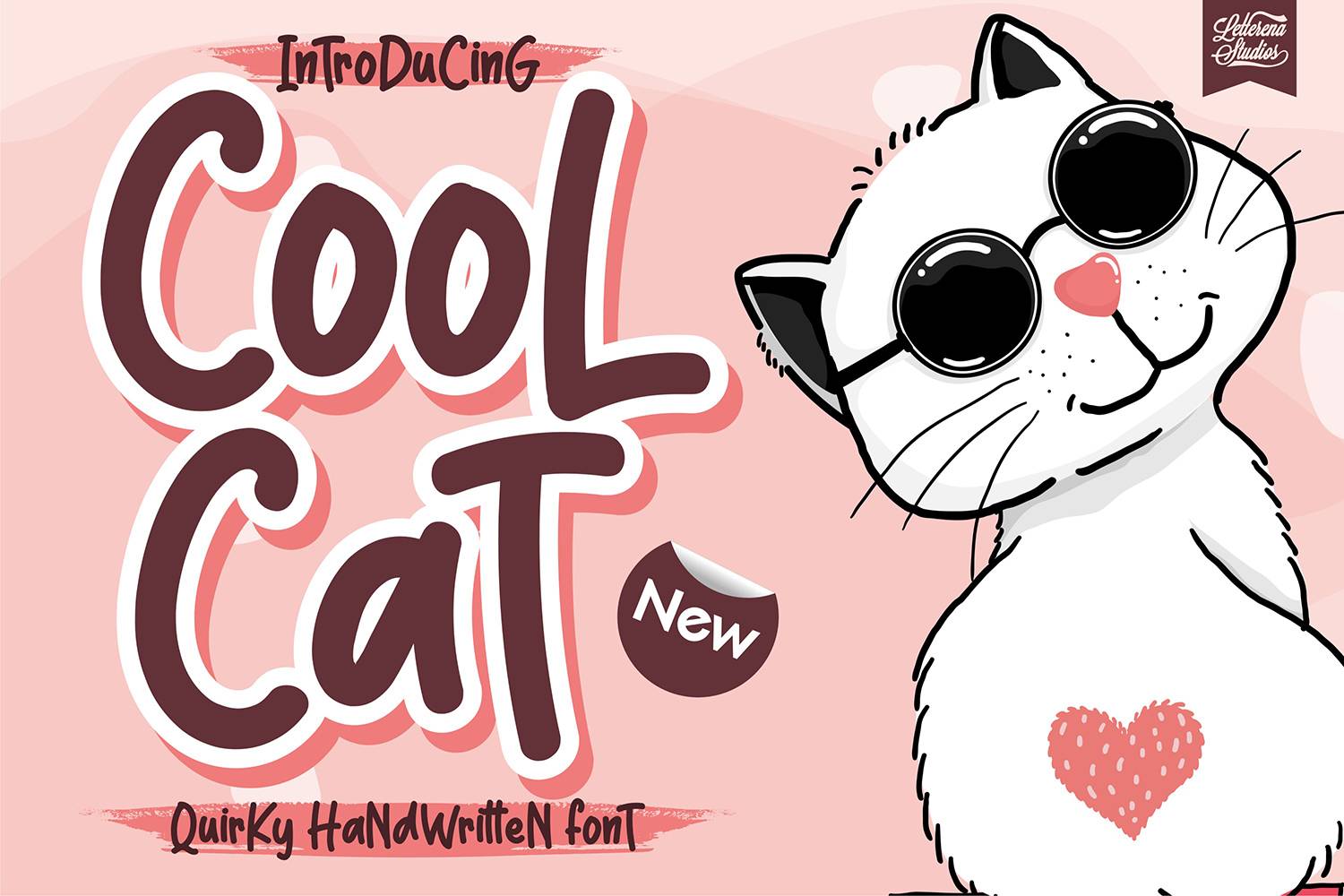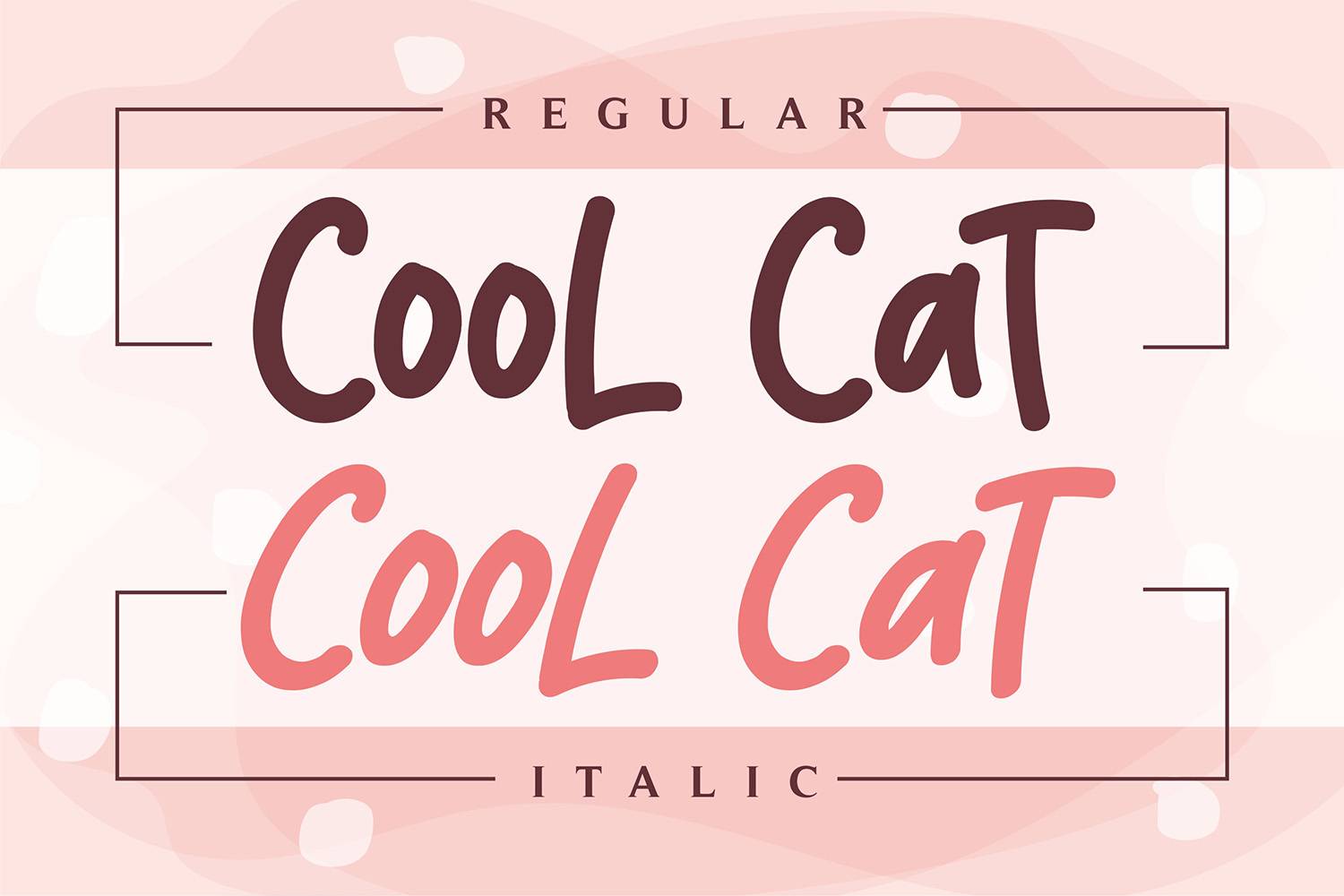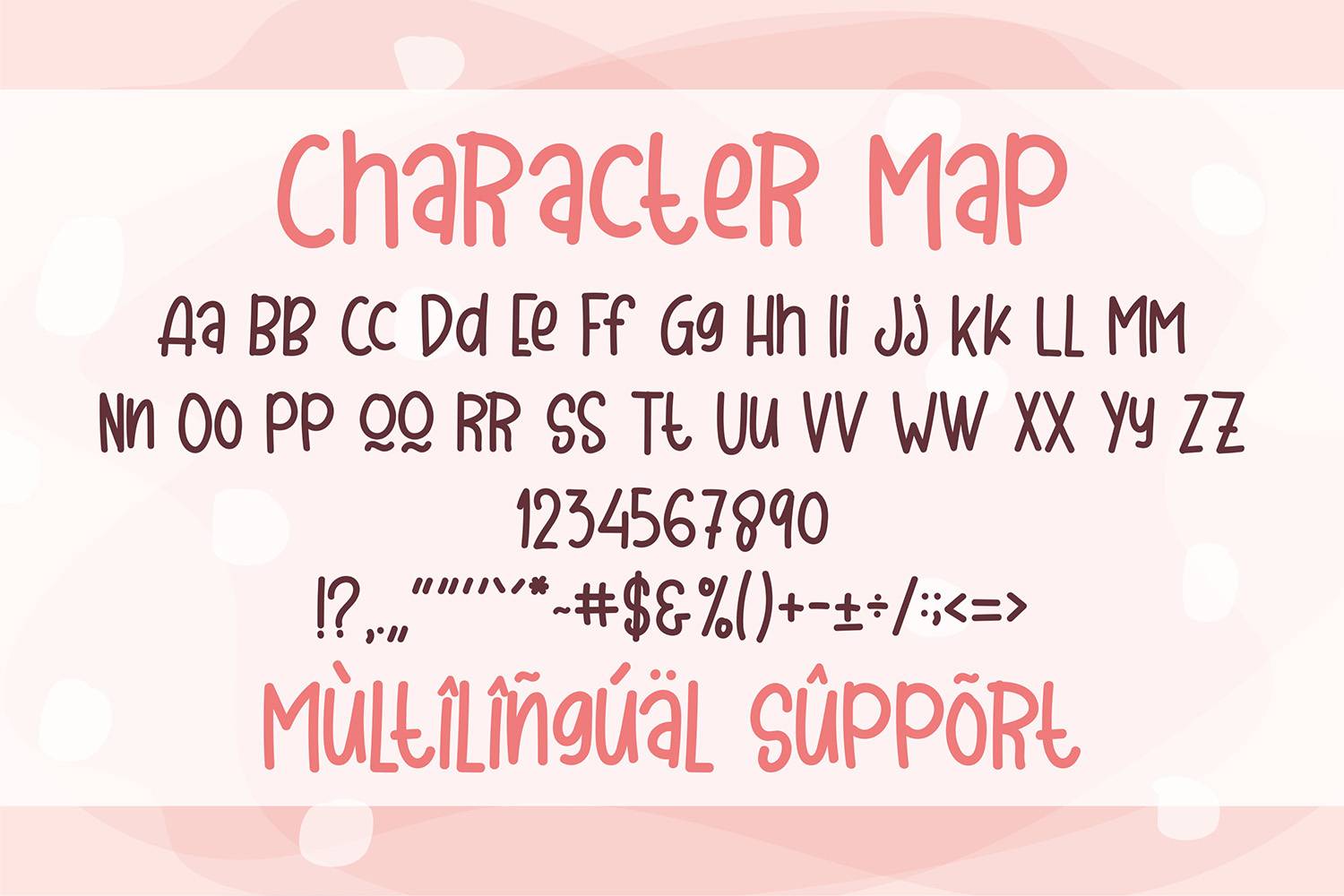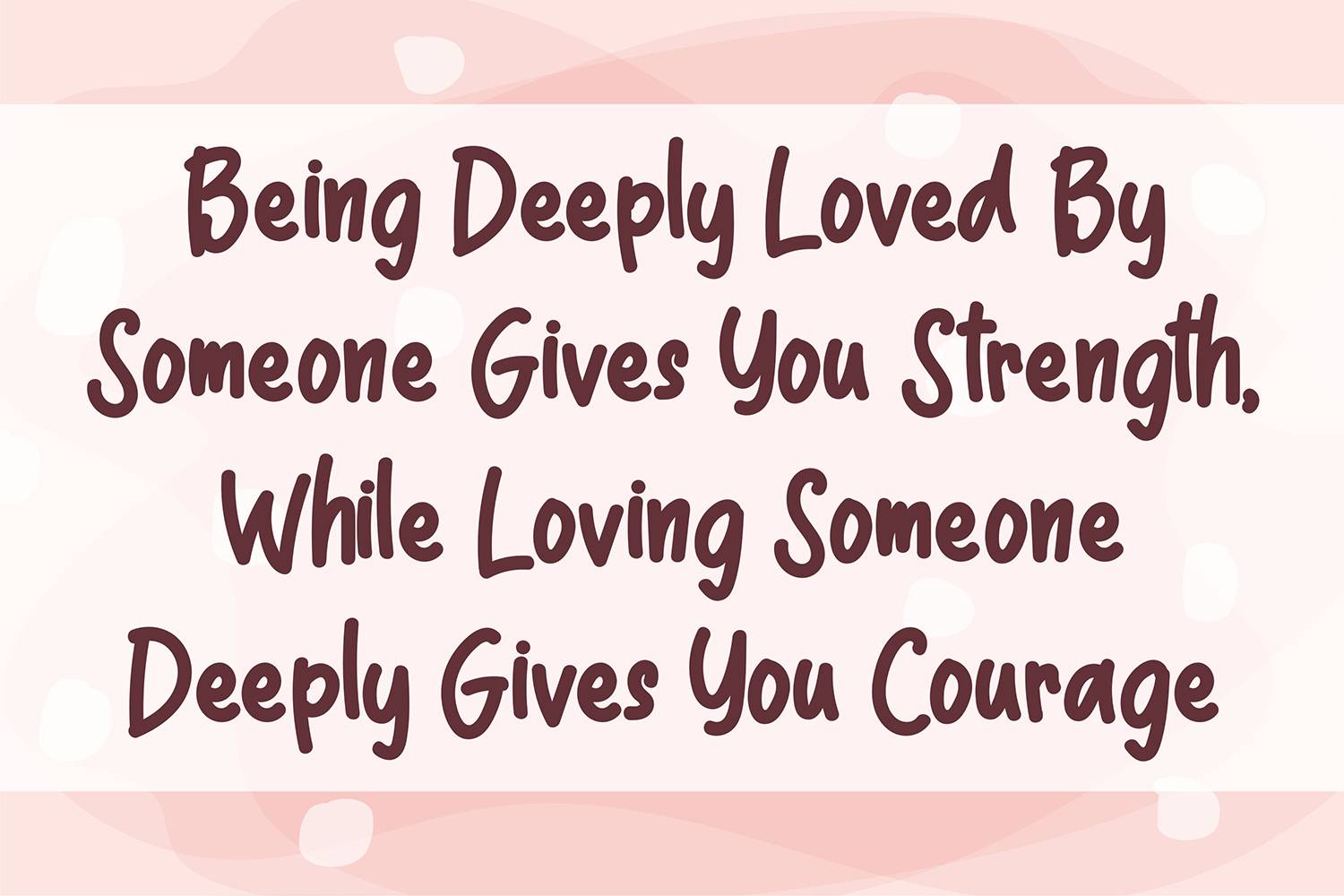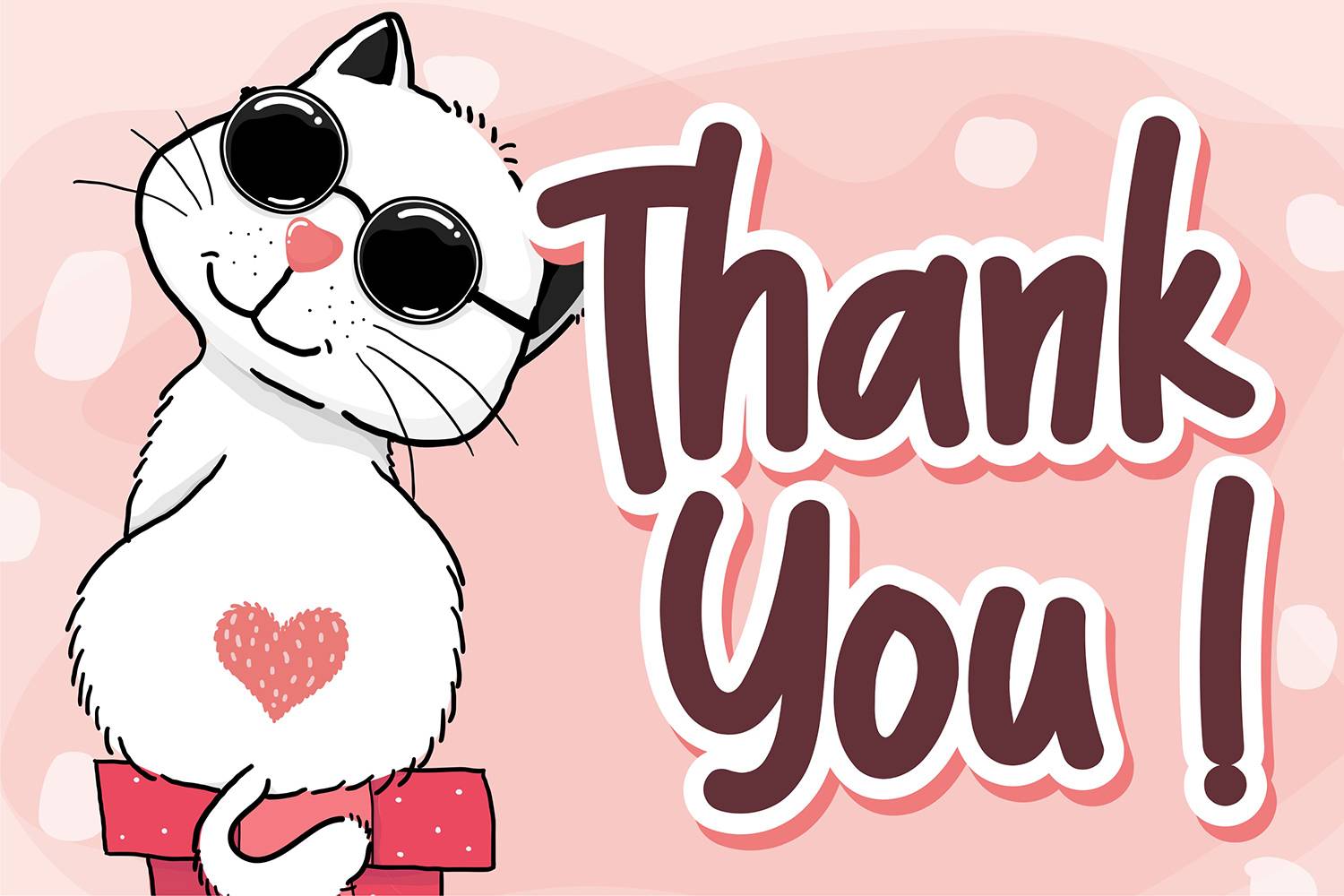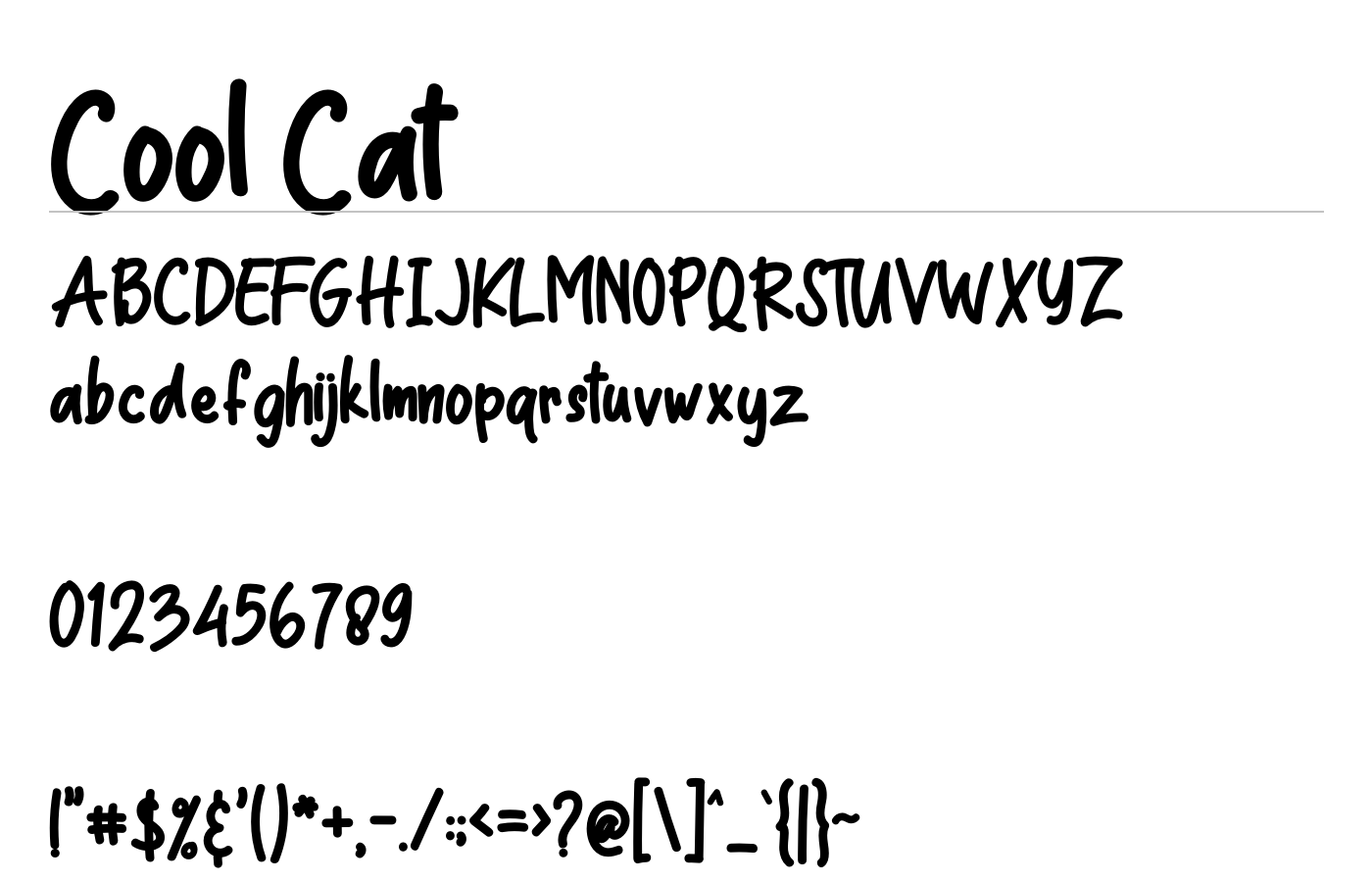
Cool Cat is a playful, casual handwritten sans serif font with a friendly and informal vibe. Its rounded, irregular letterforms and moderate weight give it a warm, approachable feel, making it ideal for creative projects, children’s materials, or relaxed branding that seeks a personal touch. This font works well in headlines, logos, and packaging where a fun, spontaneous look is desired.
Cool Cat Font
About Cool Cat Font
| Font family | Cool Cat Font |